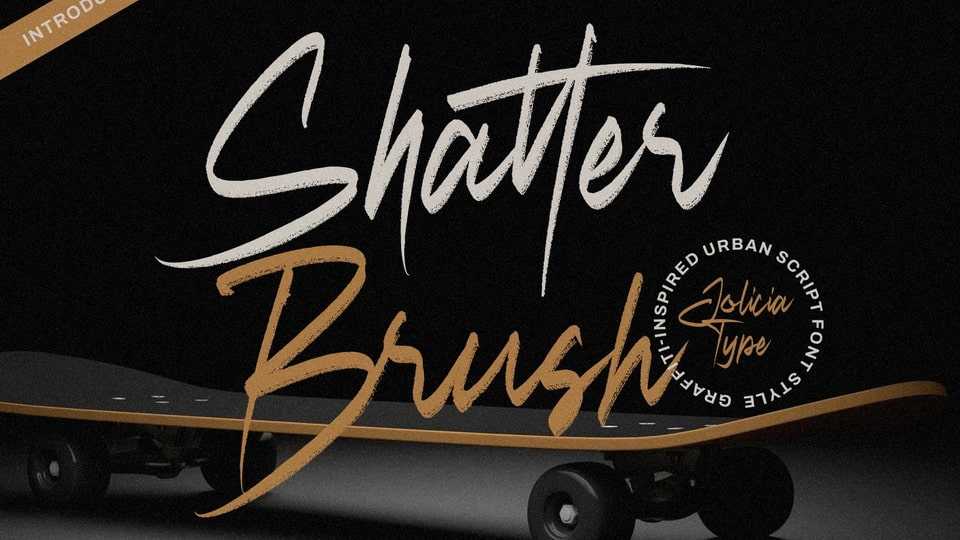
Download Shatter Brush font, an urban script typeface that exudes boldness, energy, and attitude. It features rough, irregular strokes, creating a gritty and expressive feel.